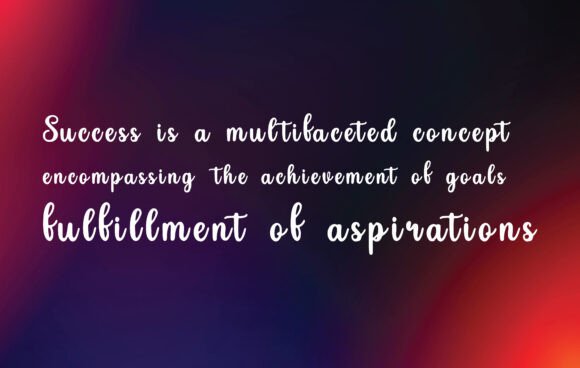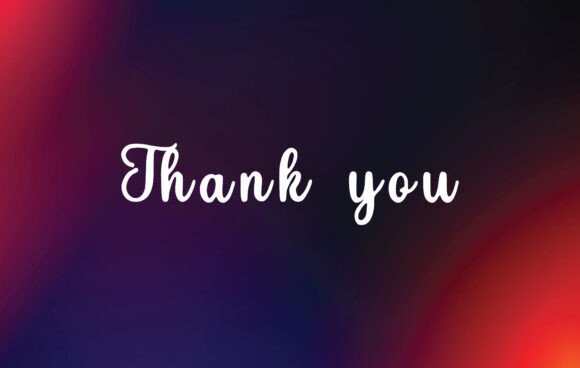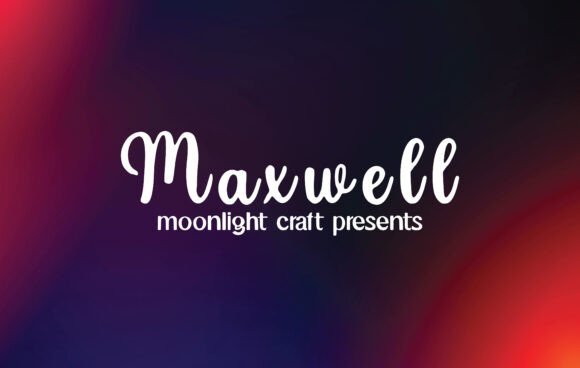
Introduction to Maxwell Font
Maxwell is a lovely and beautiful handwritten font.
Why Choose Maxwell Font?
Maxwell Font offers exceptional quality and versatility, making it a valuable addition to your design toolkit. Whether you’re creating for personal projects or commercial use, Maxwell Font delivers professional results.